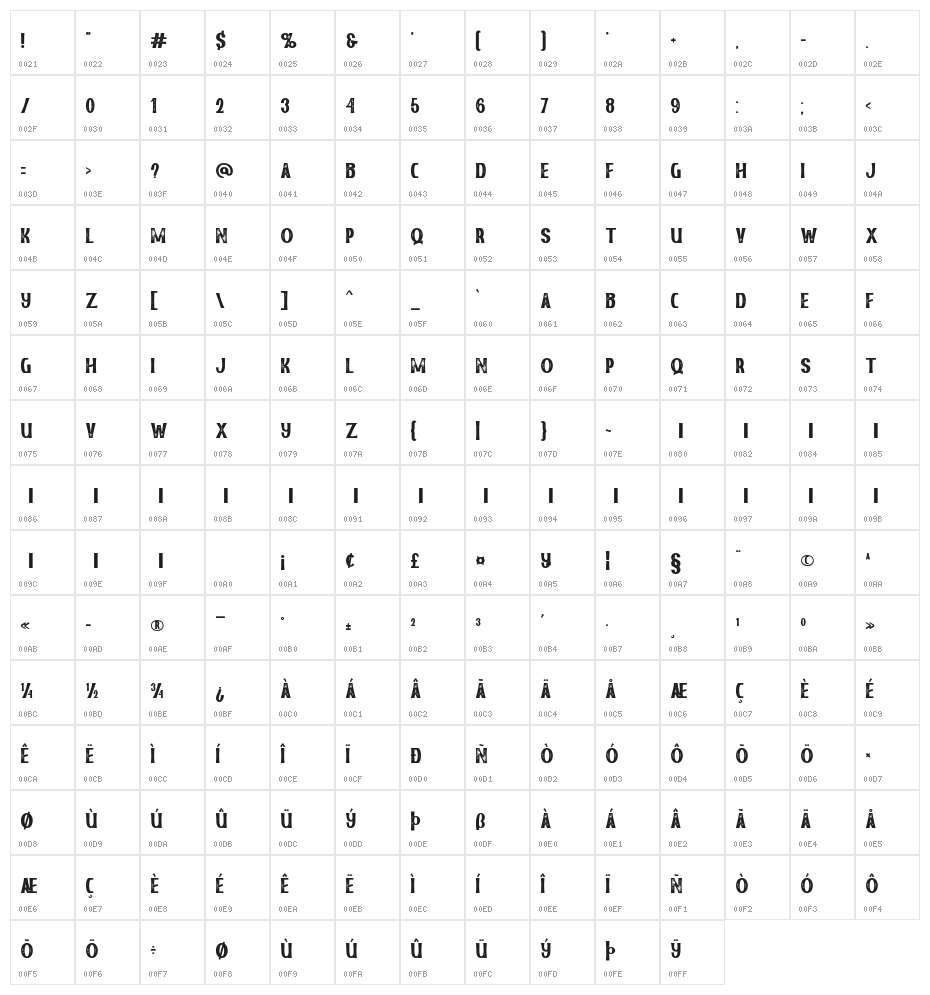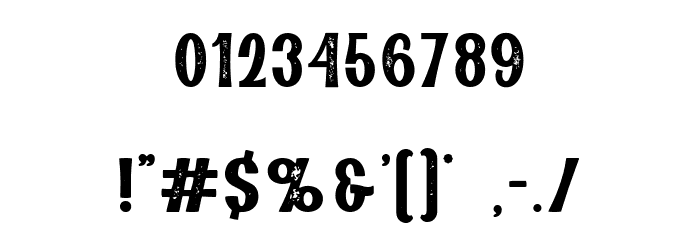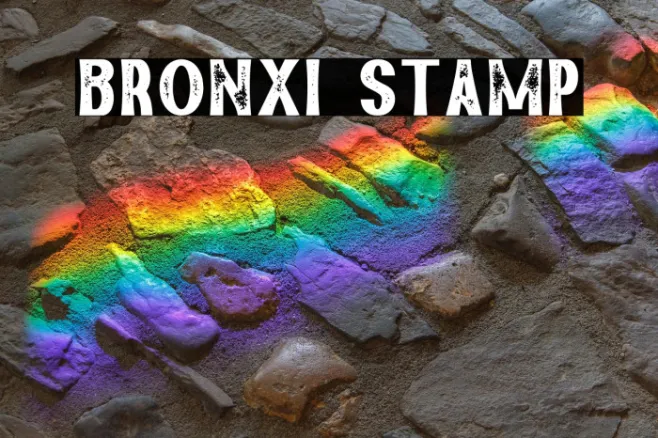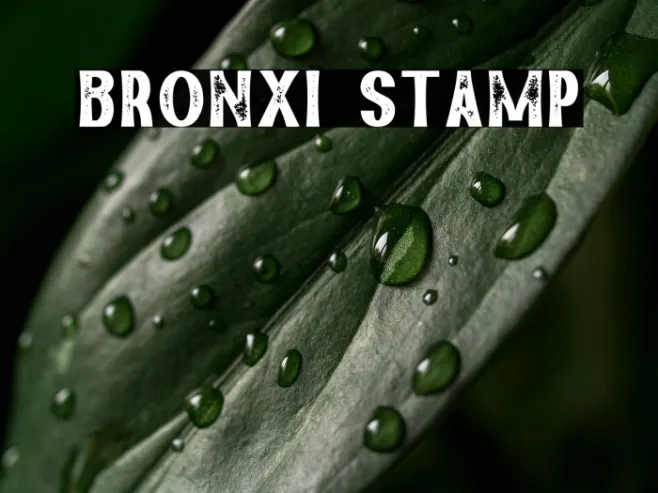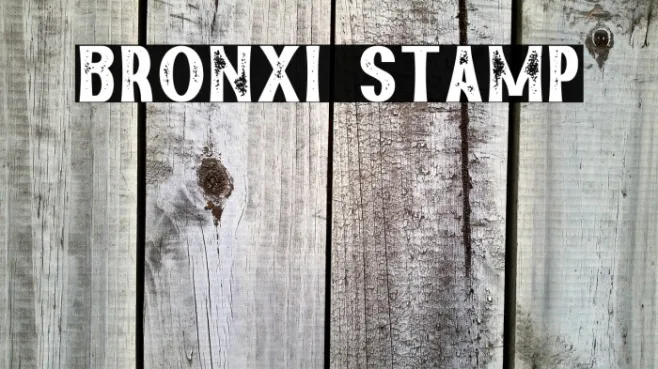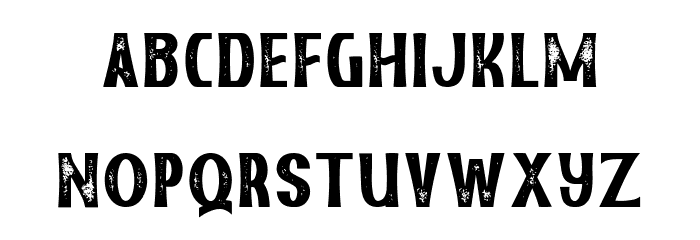
Bronxi Stamp Font
Bronxi Stamp Description
This font features a bold, distressed style with a vintage, stamp-like appearance. The uppercase letters are prominent with a slightly rough texture, giving them a worn, rustic feel. The characters have a consistent width, with a slight flare at the ends, adding to the decorative style. The numbers and special characters maintain the same distressed look, ensuring a cohesive design. This font's unique texture and bold presence make it ideal for projects that require a strong, eye-catching display.
| Proposed Projects | Ideal for posters, logos, branding, and any design requiring a vintage or rustic touch. |